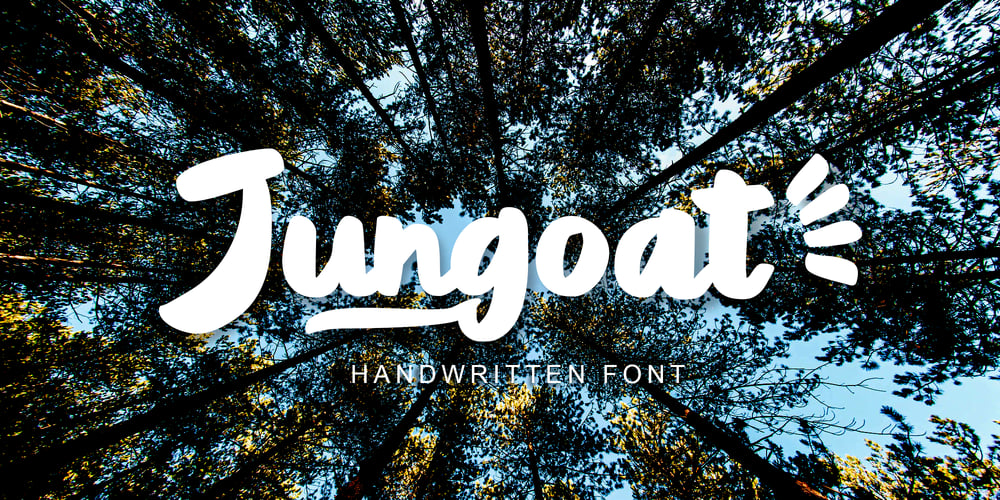
Jungoat
Jungoat font
Jungoat Font Family was designed by Rachma and published by BonjourType. Jungoat contains 1 styles and family package options. Give your designs an authentic handmade feel. The Jungoat font is perfect for stationery, logos, social media or just using the word background above.Featured fonts: Uppercase, Lowercase, Numbers, Symbols, Accents, Alternative Styles, Swash, and also supports multilingualThank you!